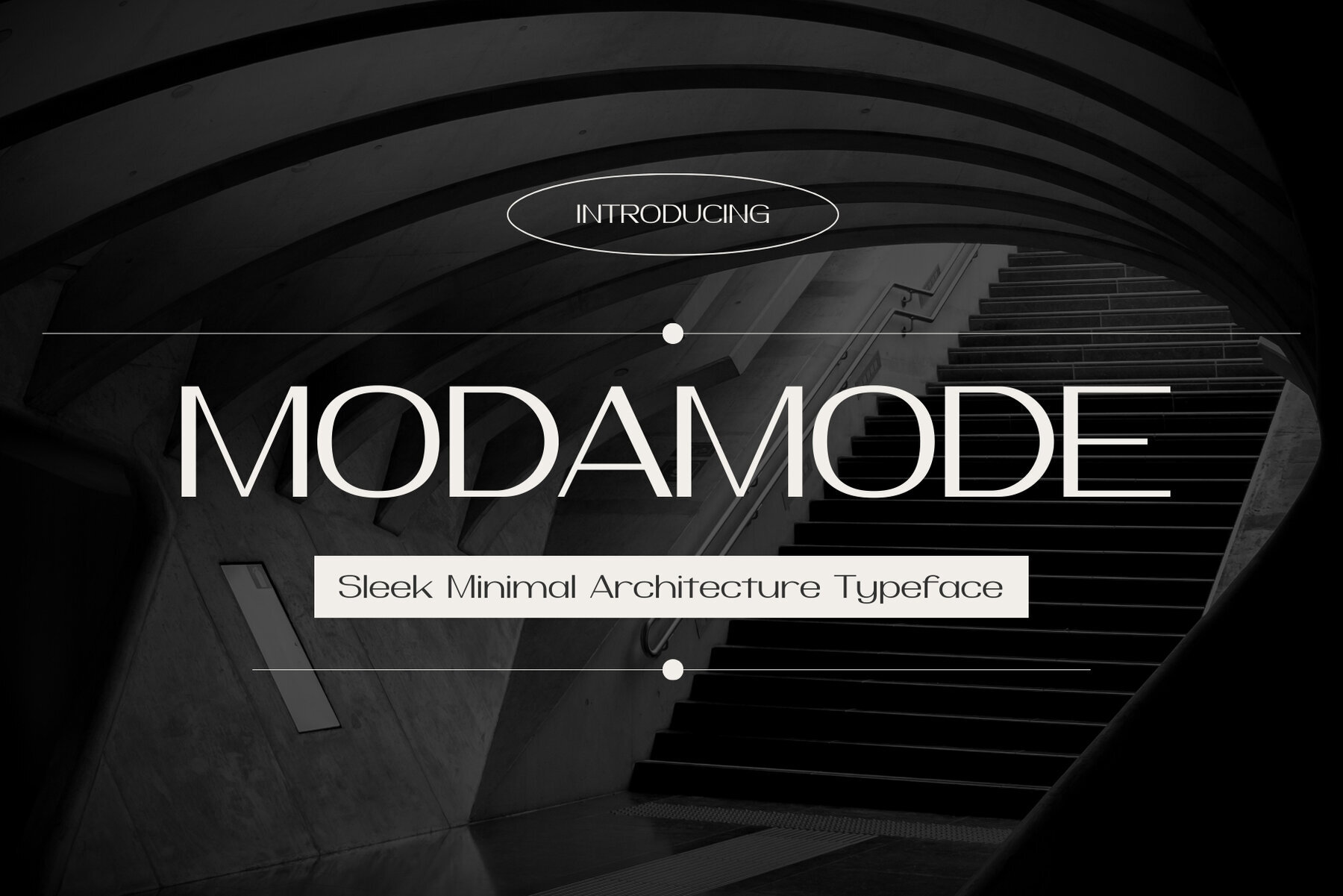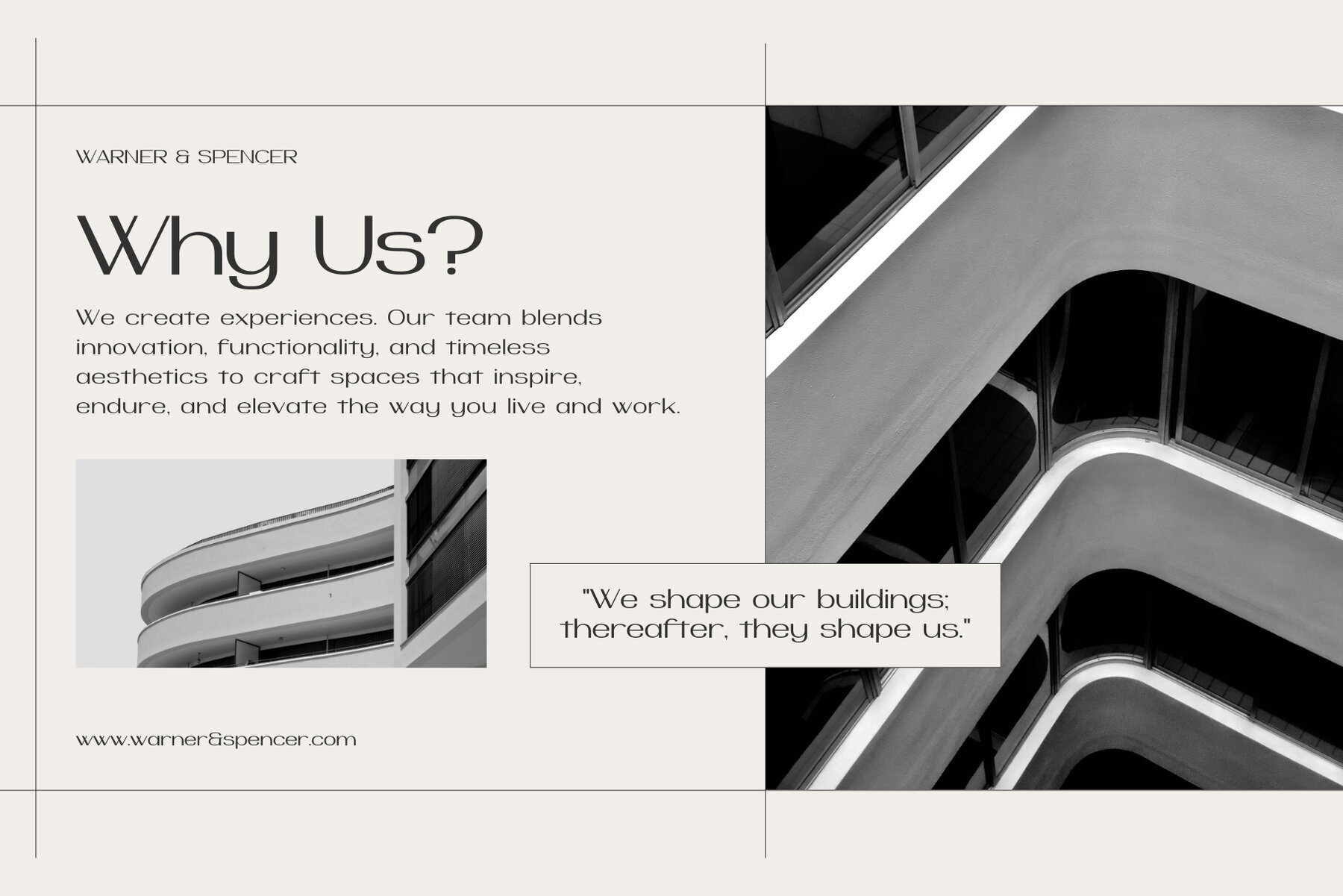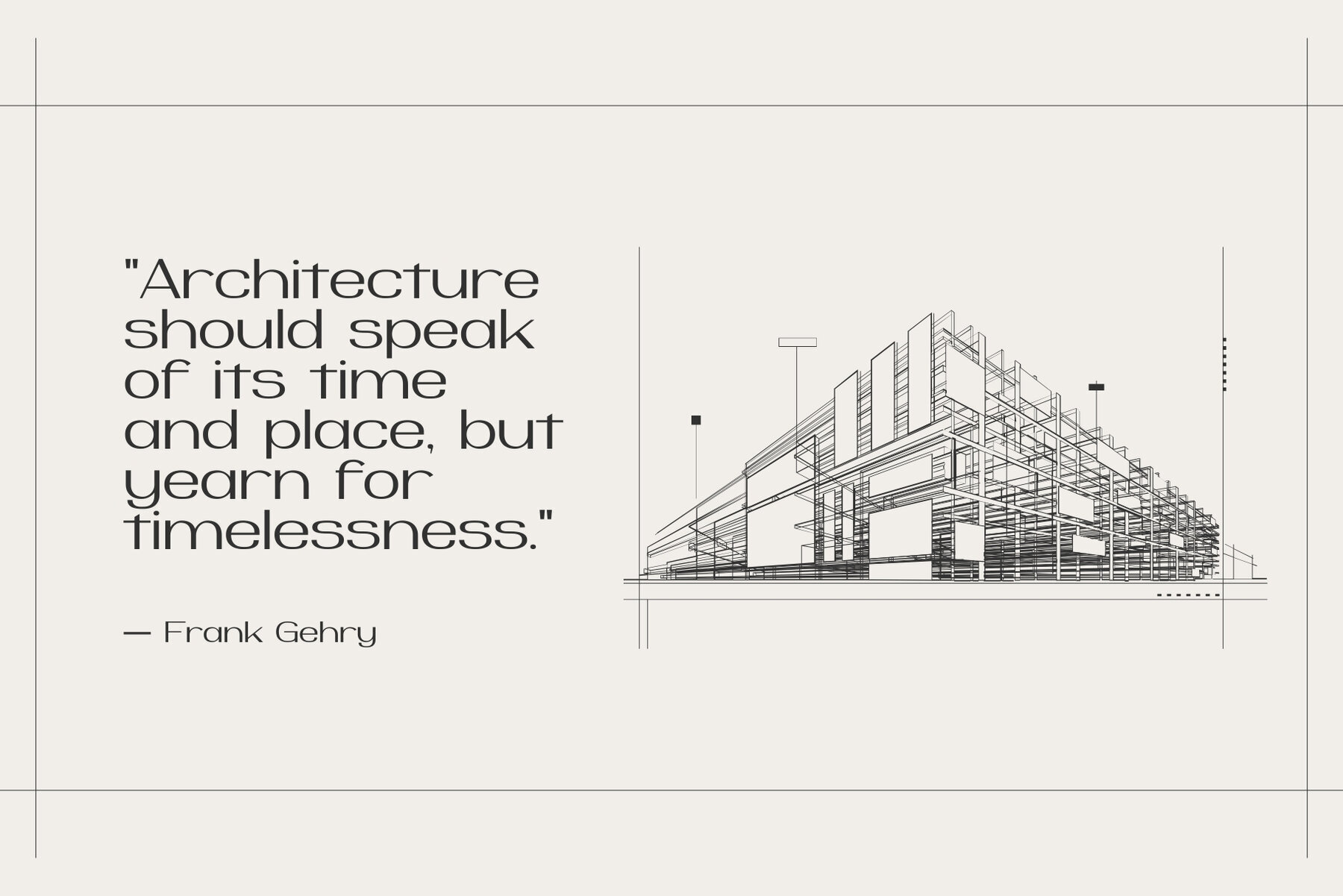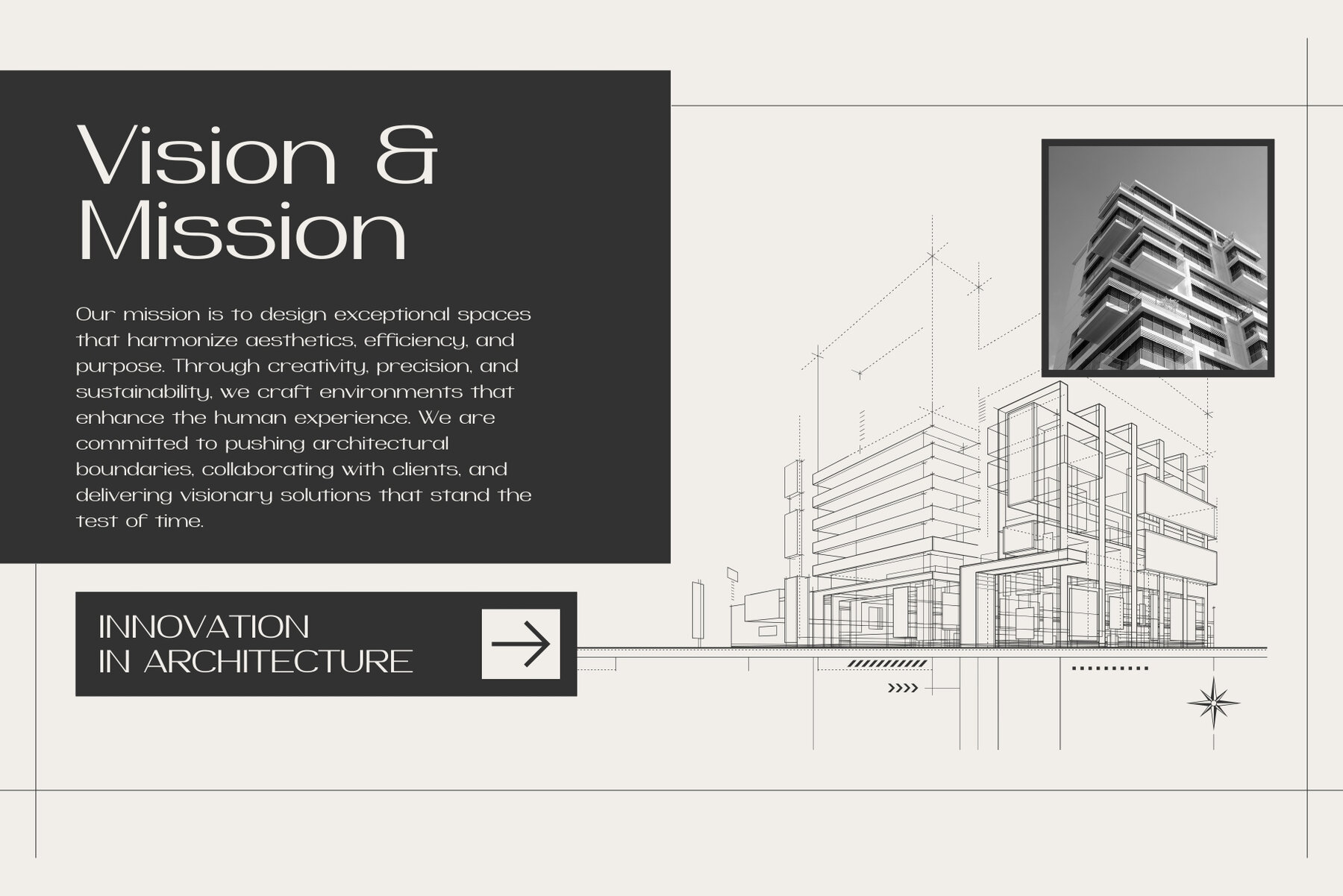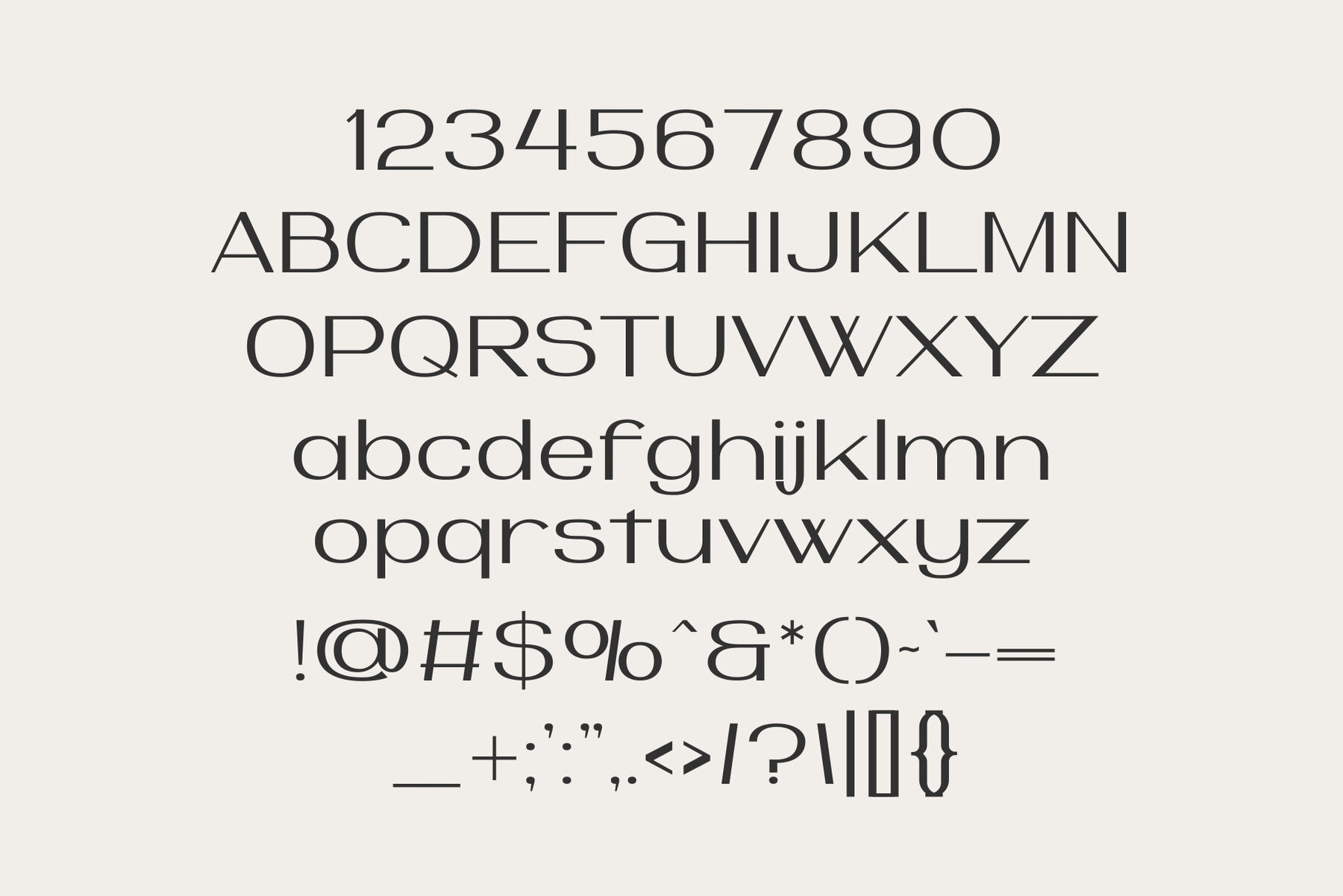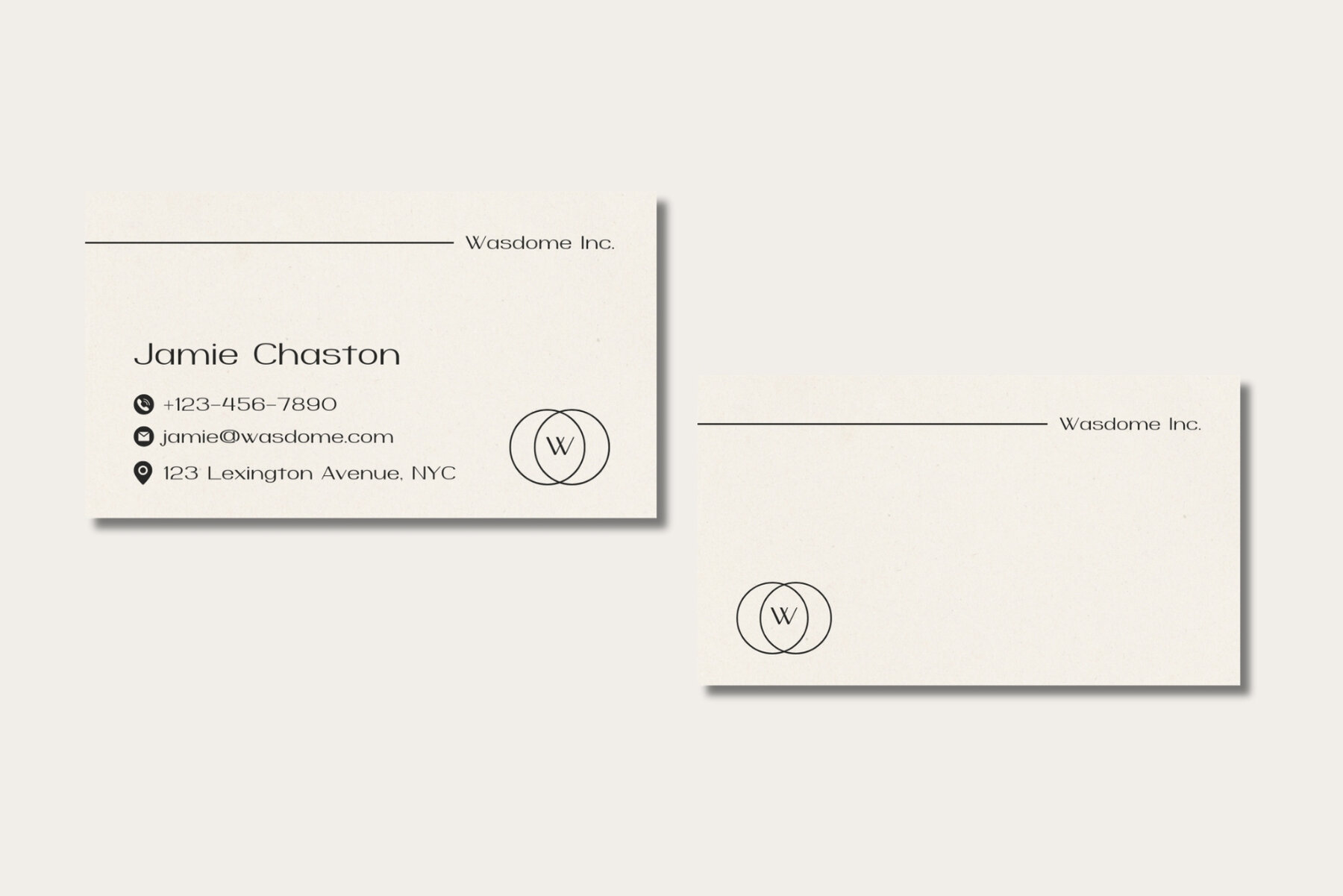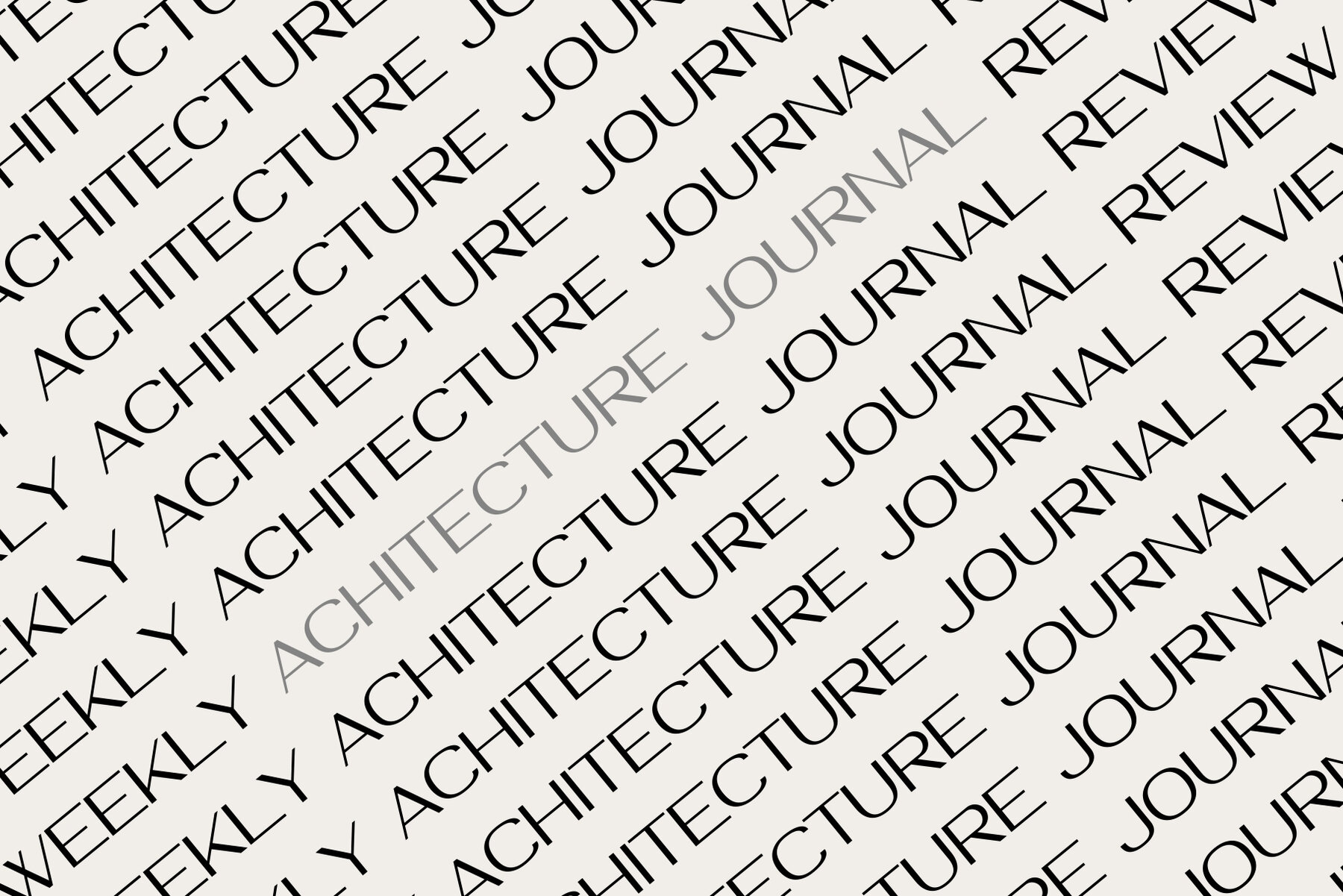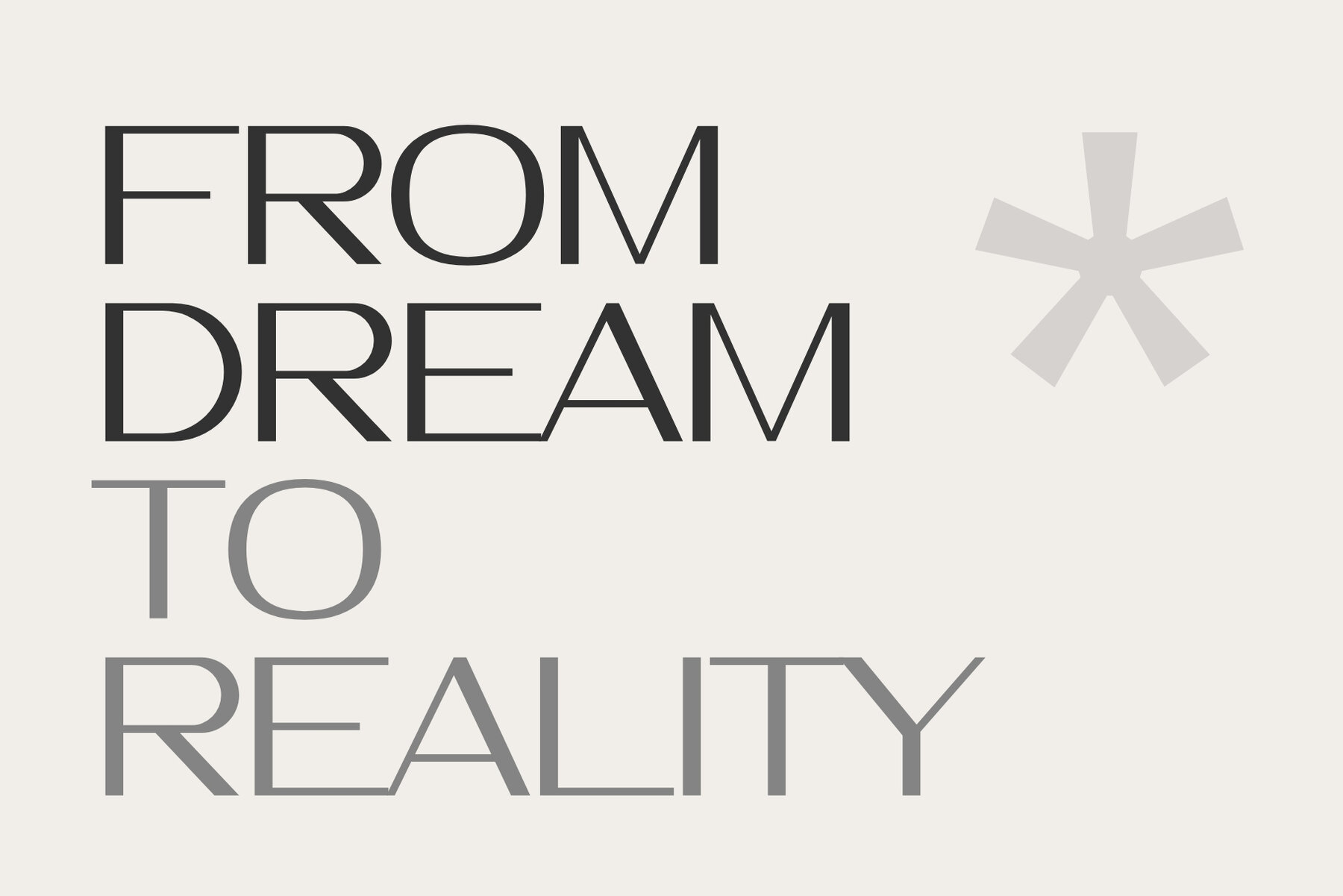
Modamode Font
Modamode
Modamode stands where modern architecture and high fashion converge. Its sleek and minimalist design with precise letterforms embodies the sophistication of contemporary structures, offering a seamless sense of luxury. Ideal for architecture firms, fashion brands, upscale editorials, and premium branding projects, Modamode serves those who value clean aesthetics and timeless elegance. With geometric precision and subtle refinement, Modamode strikes a harmonious balance between form and function. Whether crafting a distinctive logo, an elegant magazine layout, or a unique brand identity, this typeface infuses your project with modern sophistication.Modamode: A Typeface of Architectural Elegance